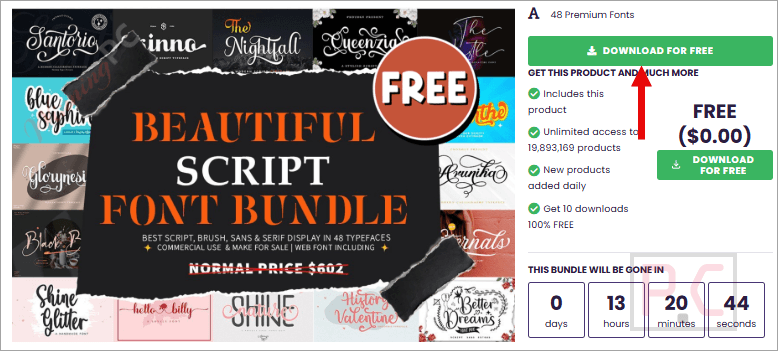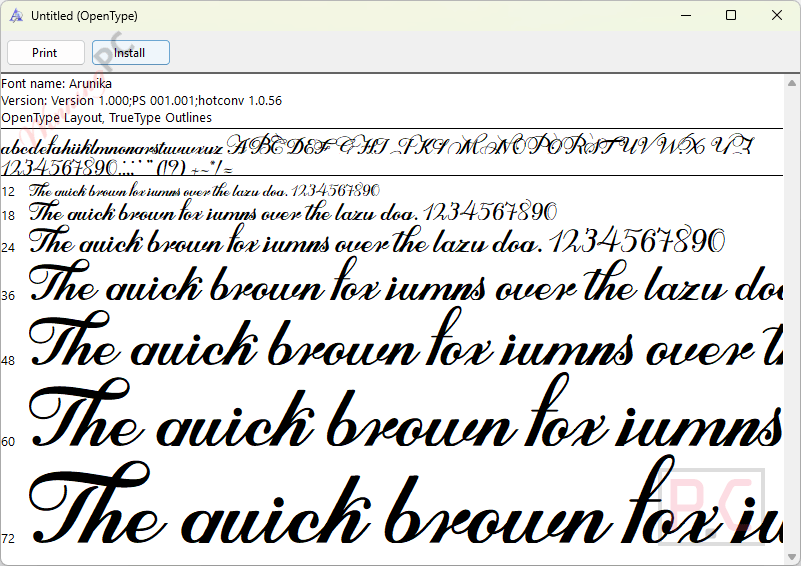
The Beautiful Script Font Bundle is a typography collection compiling handwritten and calligraphy-style script fonts for print and digital applications. The package integrates multiple font styles featuring structural letter connections and specific decorative details. Supported implementation areas include invitations, logos, branding, social media graphics, packaging, and greeting cards.
Beautiful Script Font Bundle
The Beautiful Script Font Bundle includes many elegant and easy-to-use fonts for creative projects. The lettering looks smooth and professional, making invitations, logos, and social media designs more attractive. It offers a nice variety of styles and works well for both personal and commercial designs.